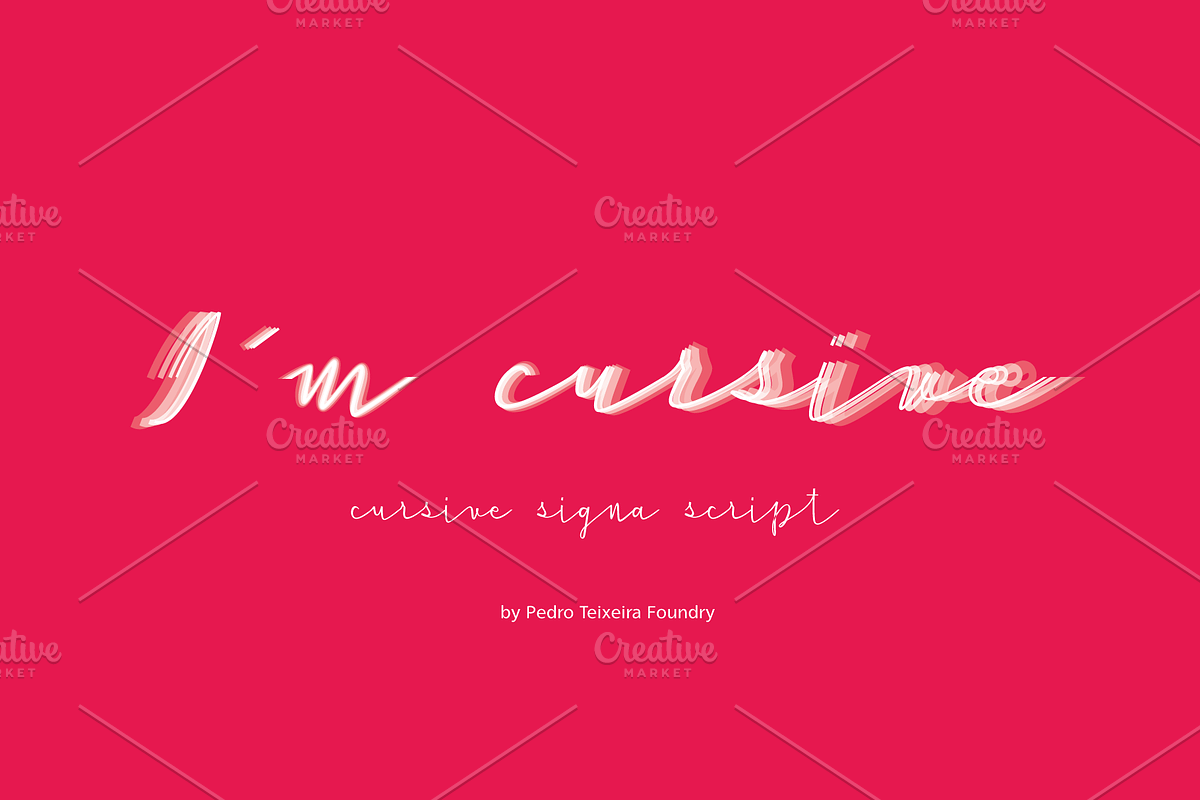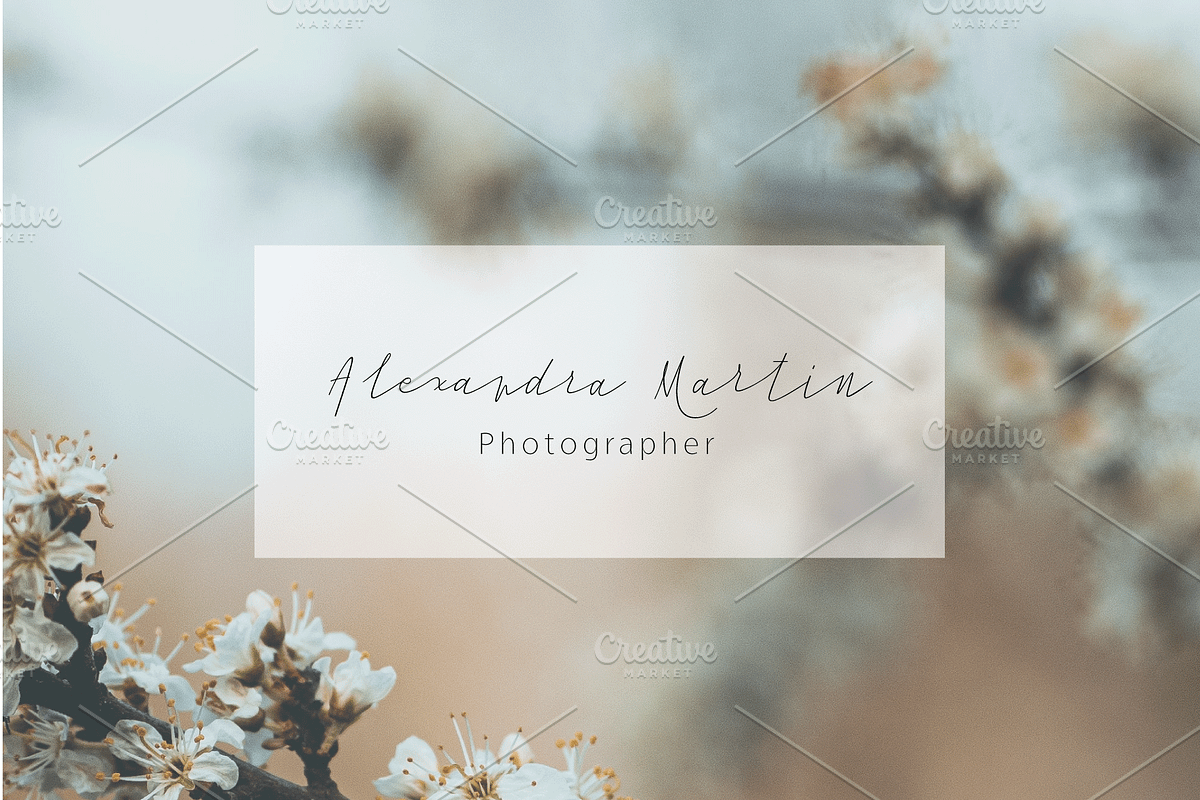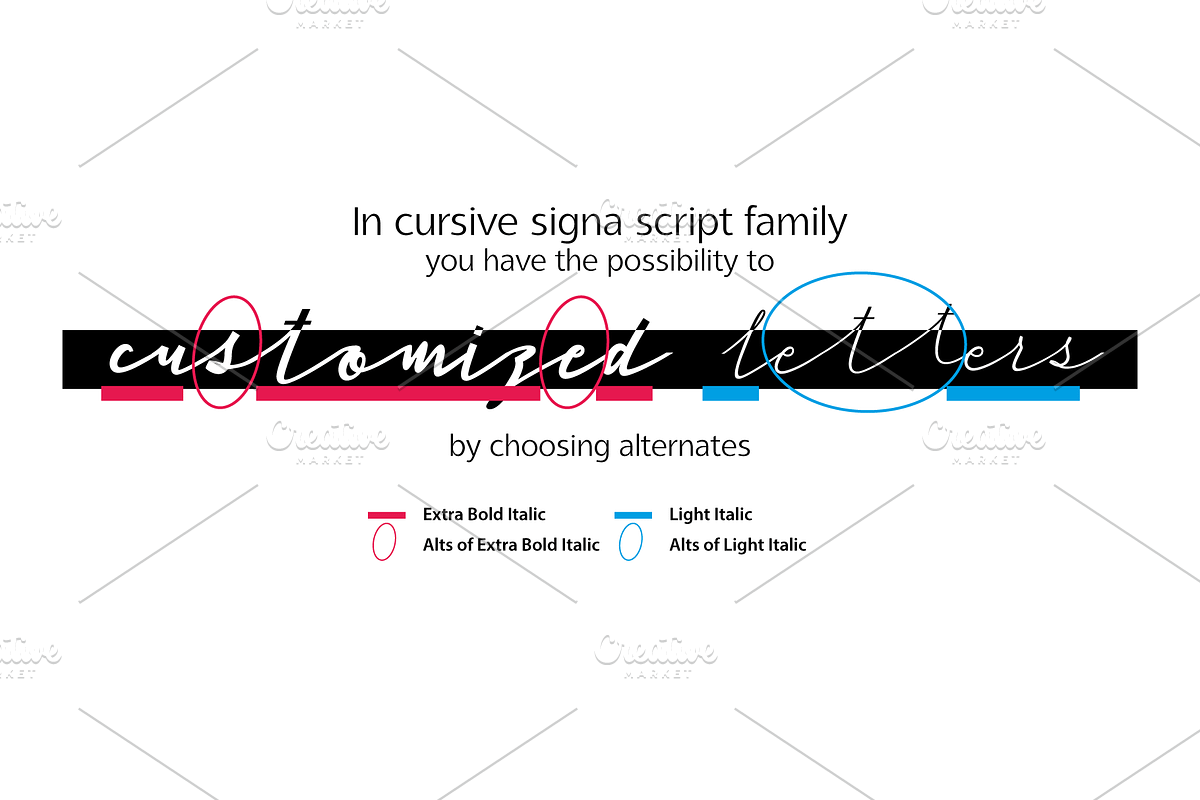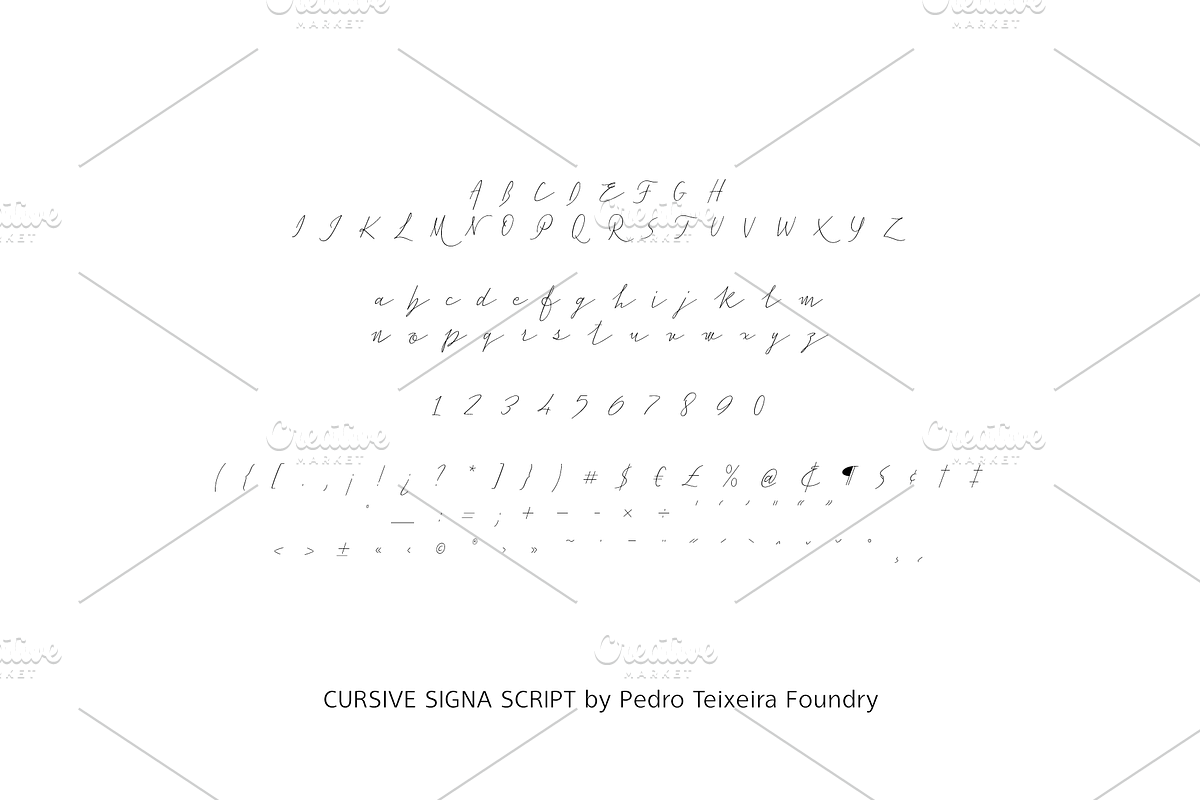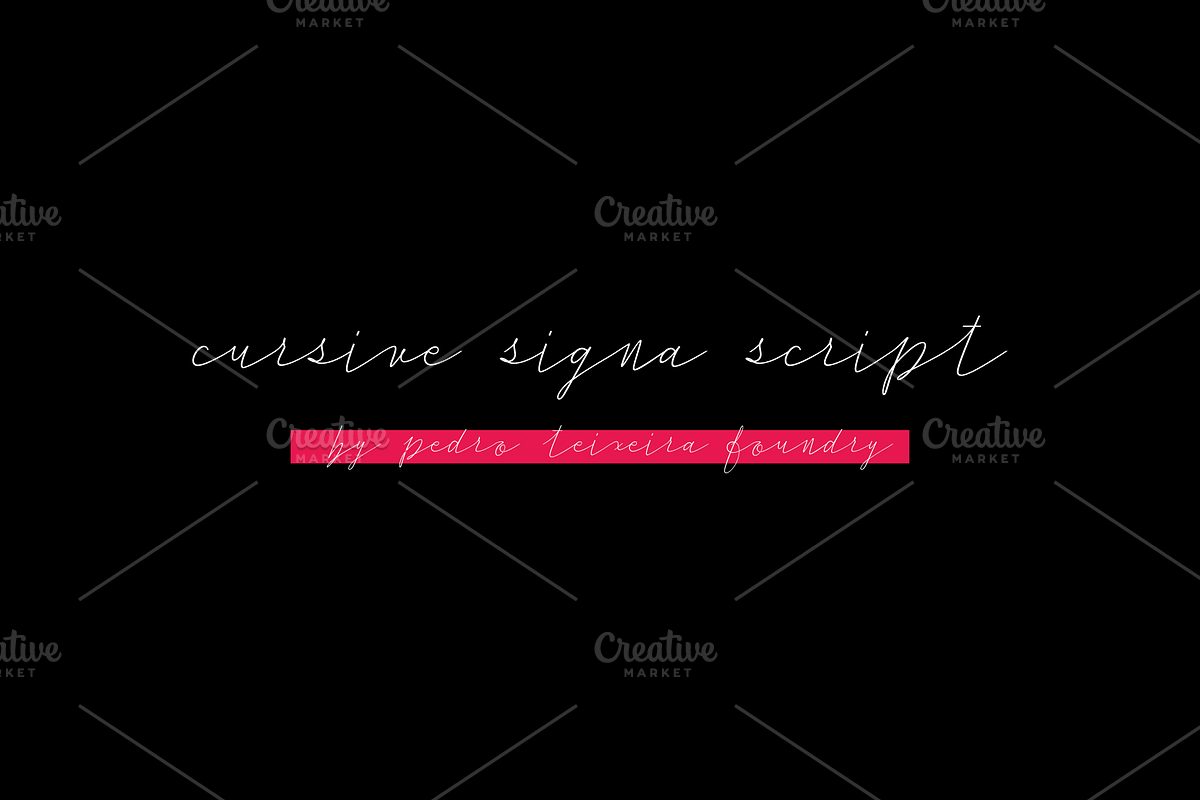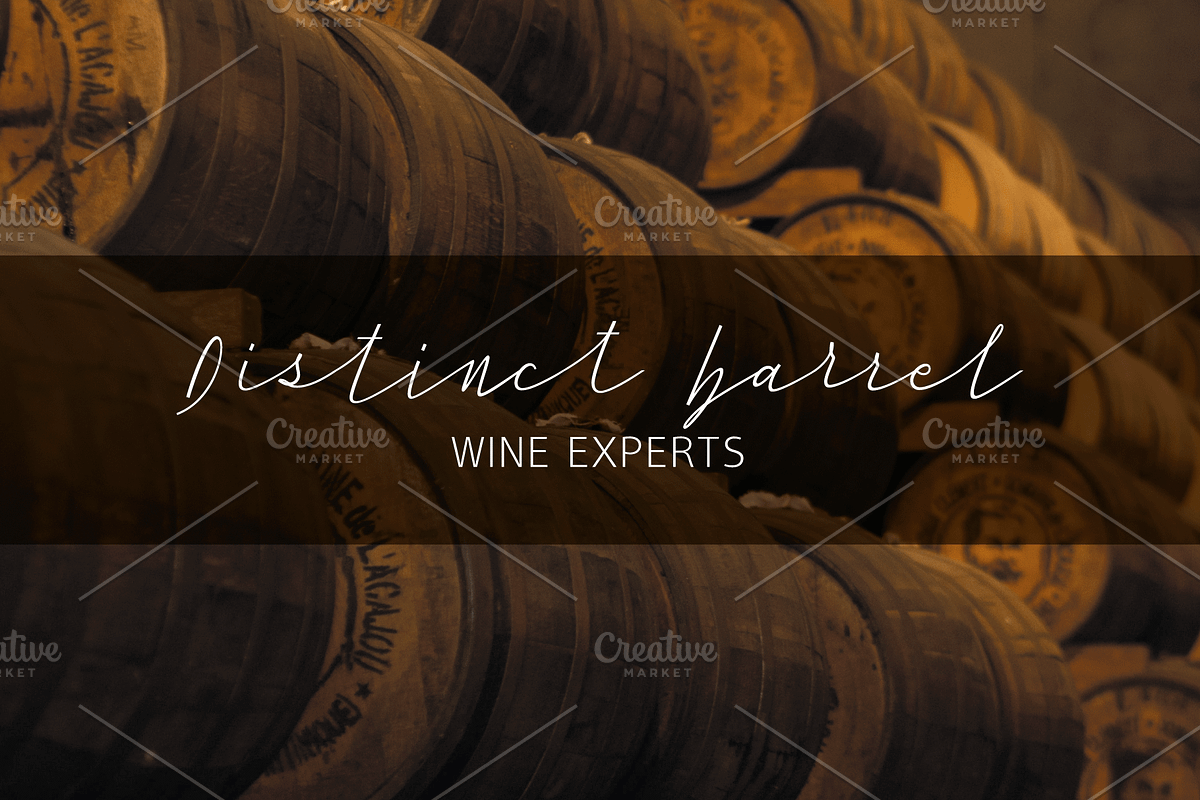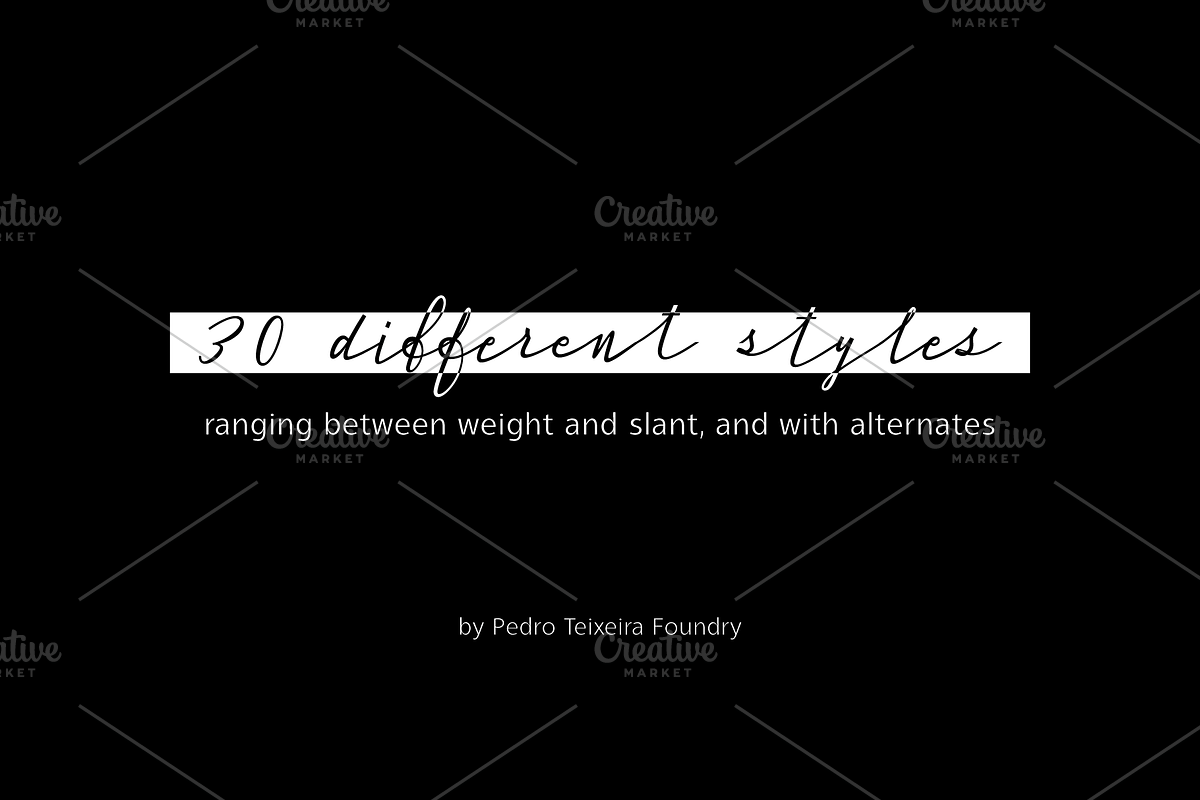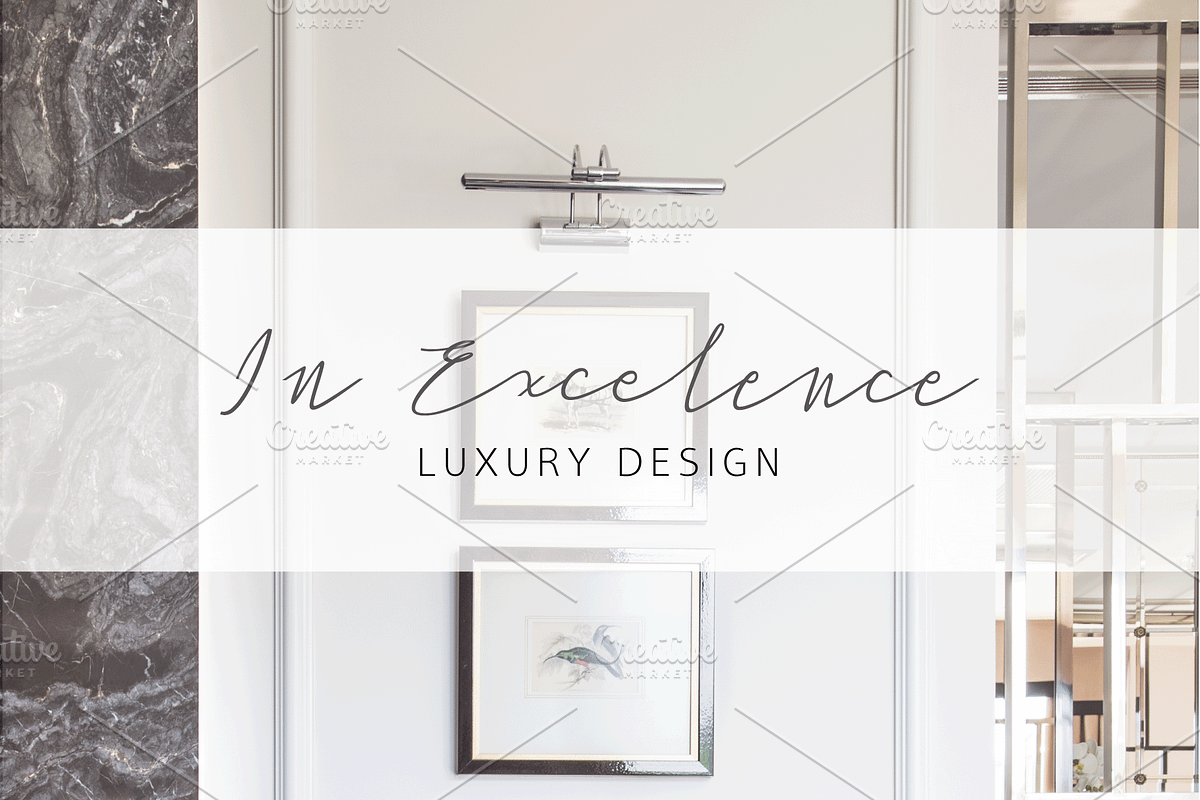
CURSIVE SIGNA SCRIPT FAMILY - 50% OFF = 30 SCRIPT FONTS
One of the rare, huge script, true cursive and signature family. It has 30 styles, that range between weight and slant, and with alternates.
It can be use in a lot of projects, like logos, end of a statement, pairing with a beautiful sans serif like Aleante, in a title, invites and so on.